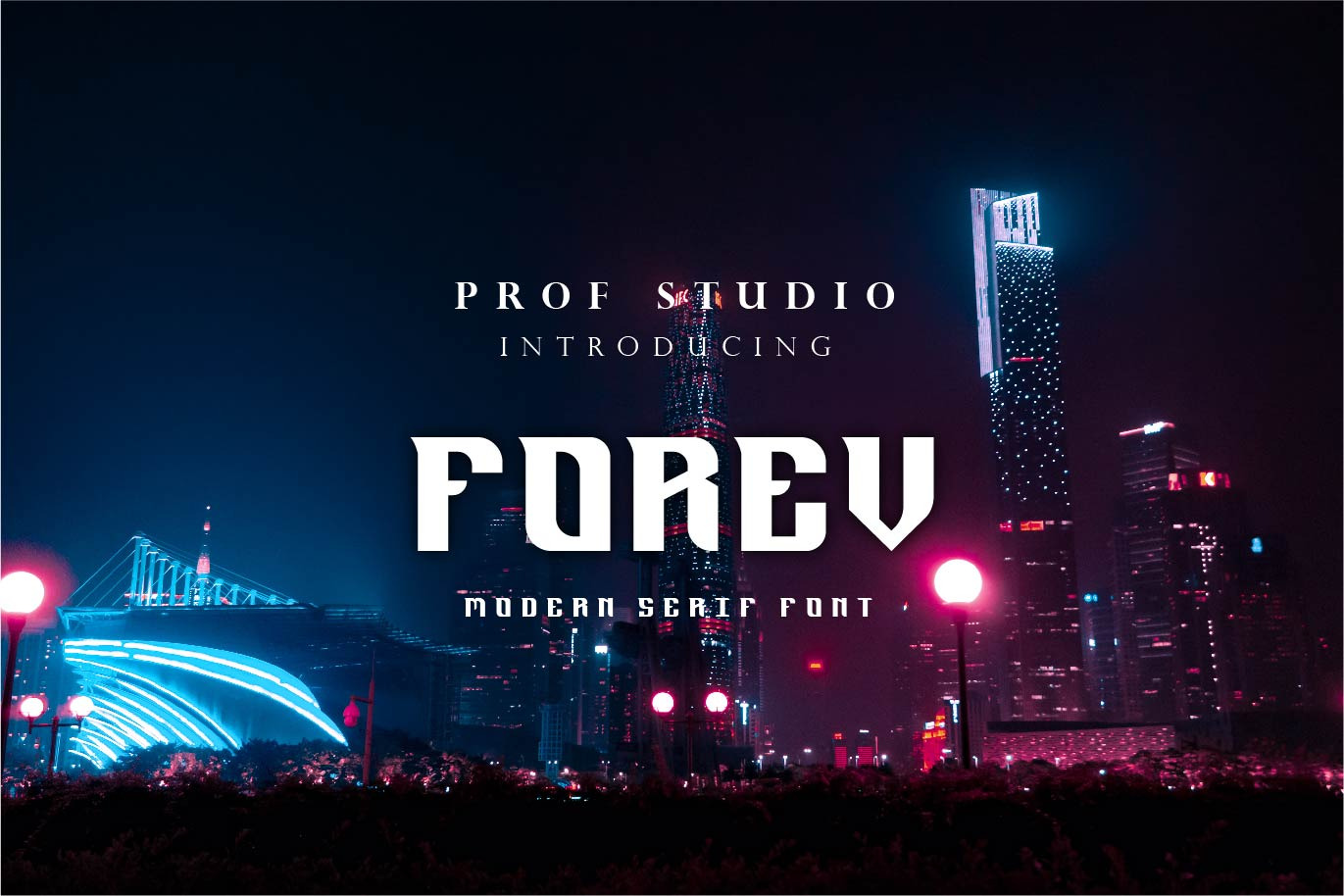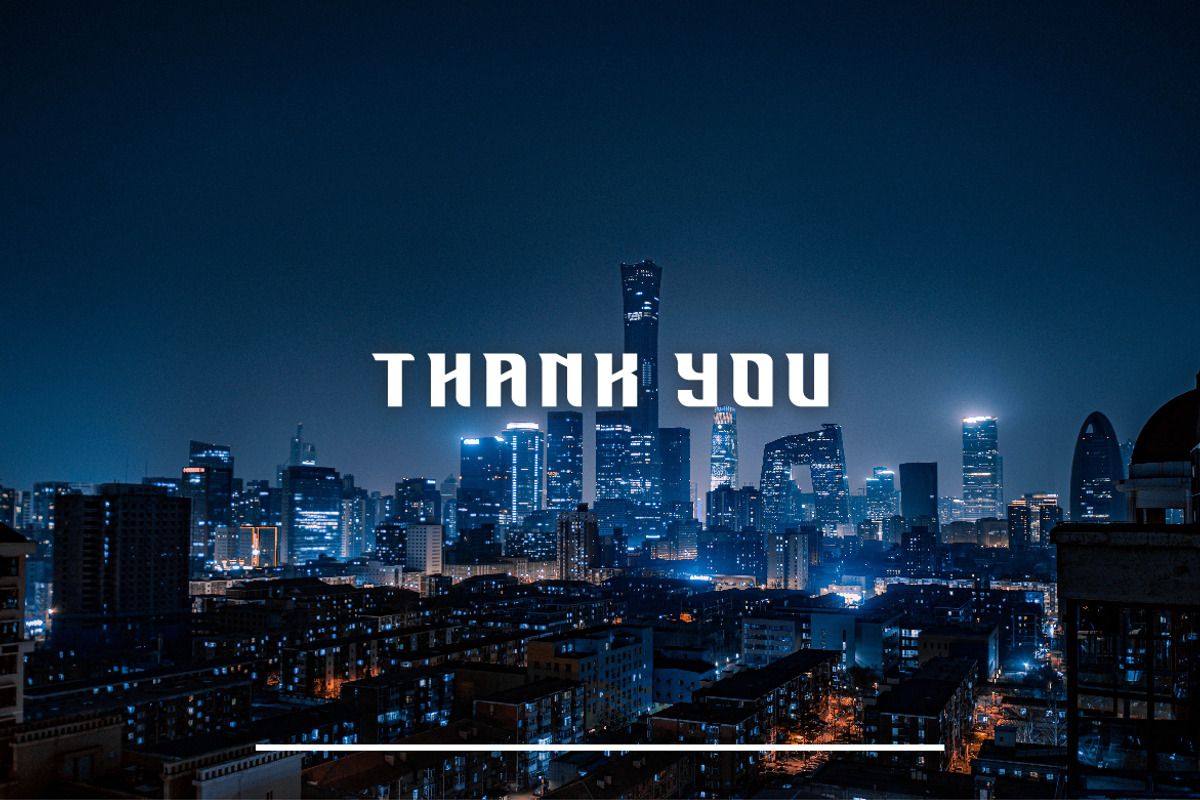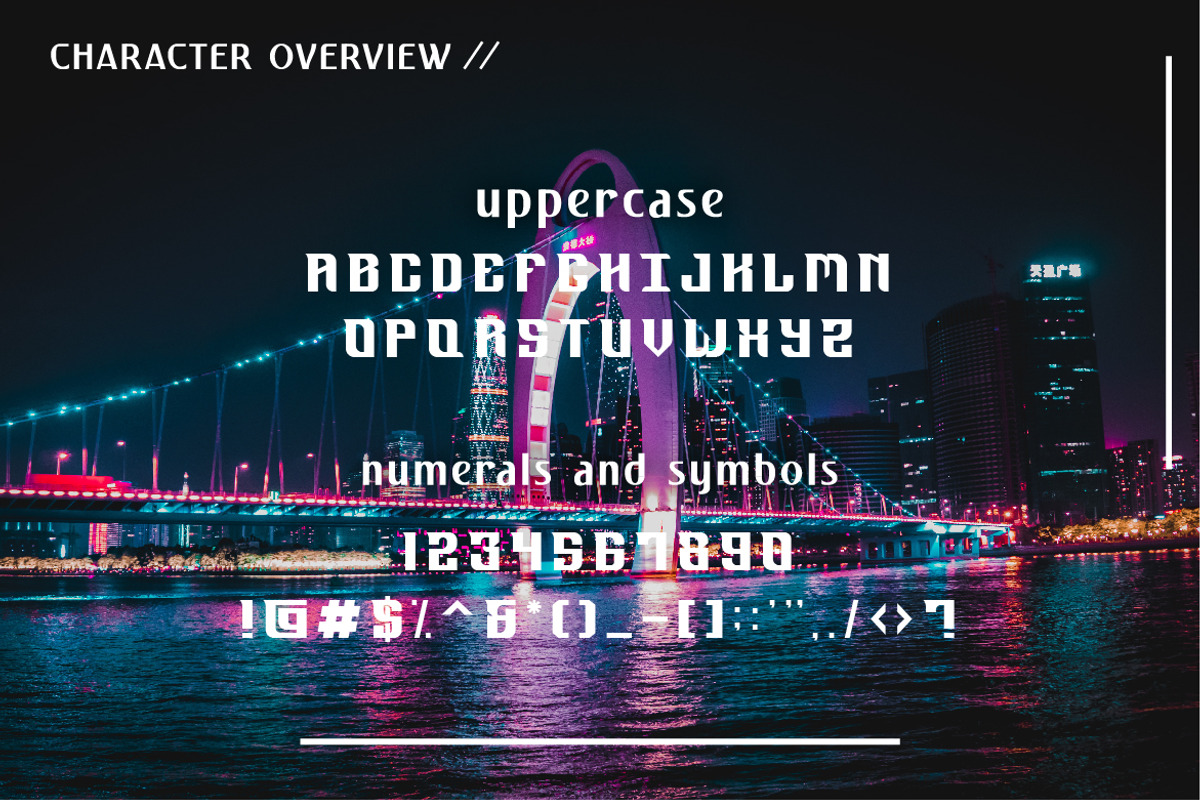
Forev - Modern Bold Serif Font
Hi Ladies and Gentleman ! Proudly present Modern Serif Font “Forev” for your business.
Forev - Modern Serif which can be interpreted professional. we keep this font looks modern, Bold, readable, stylish, catchy and easy to use.
Forev - is the great choice for event design ,magazine, brand design, logo, and many other design project. Forev here to make your work to high level!!!